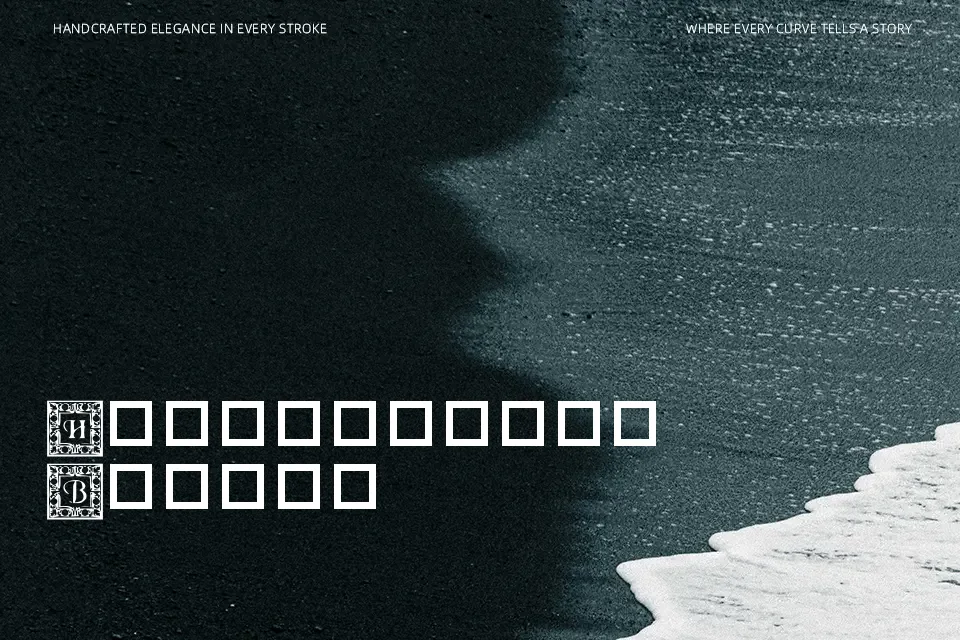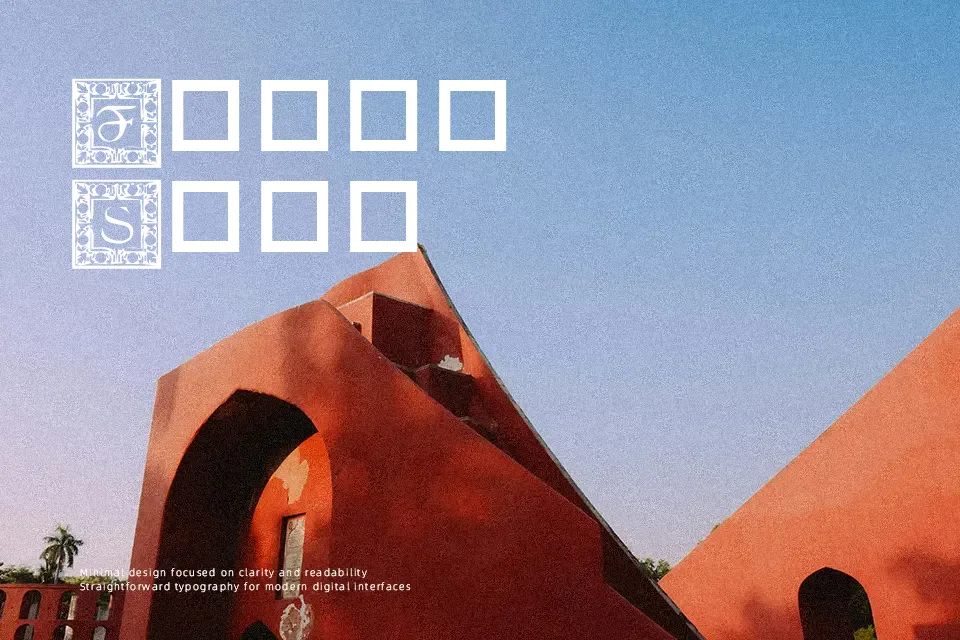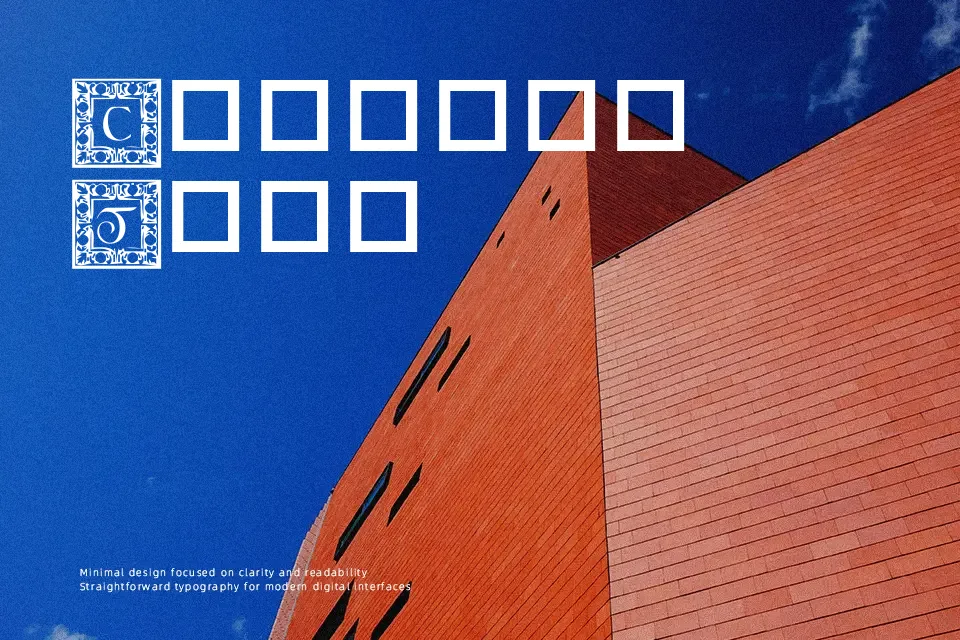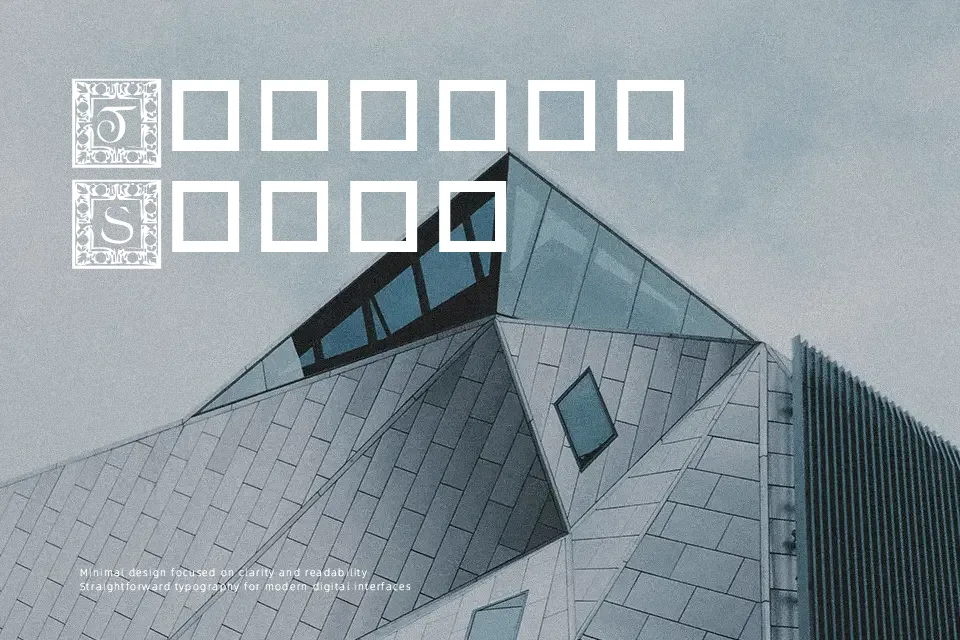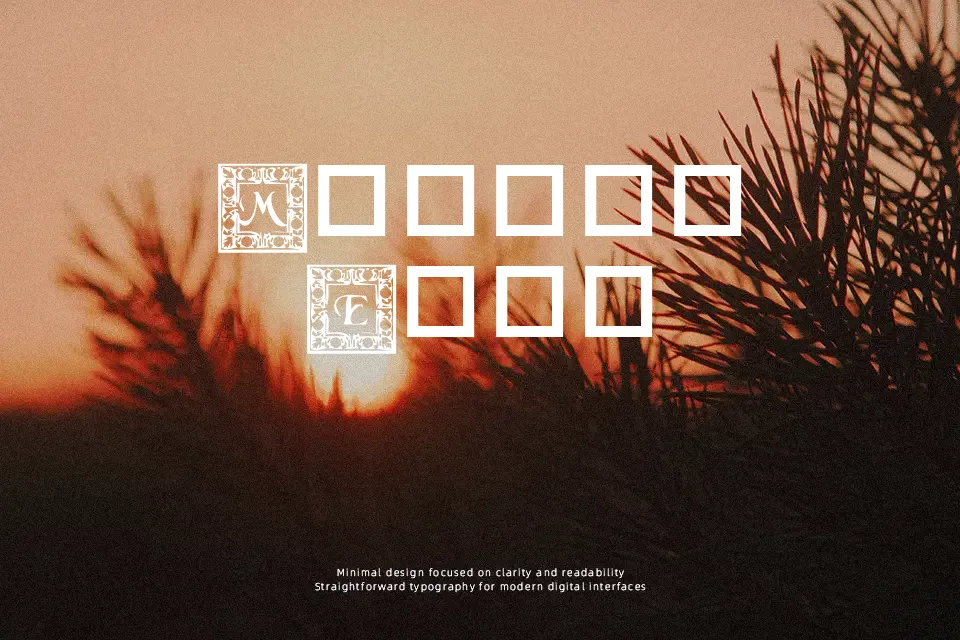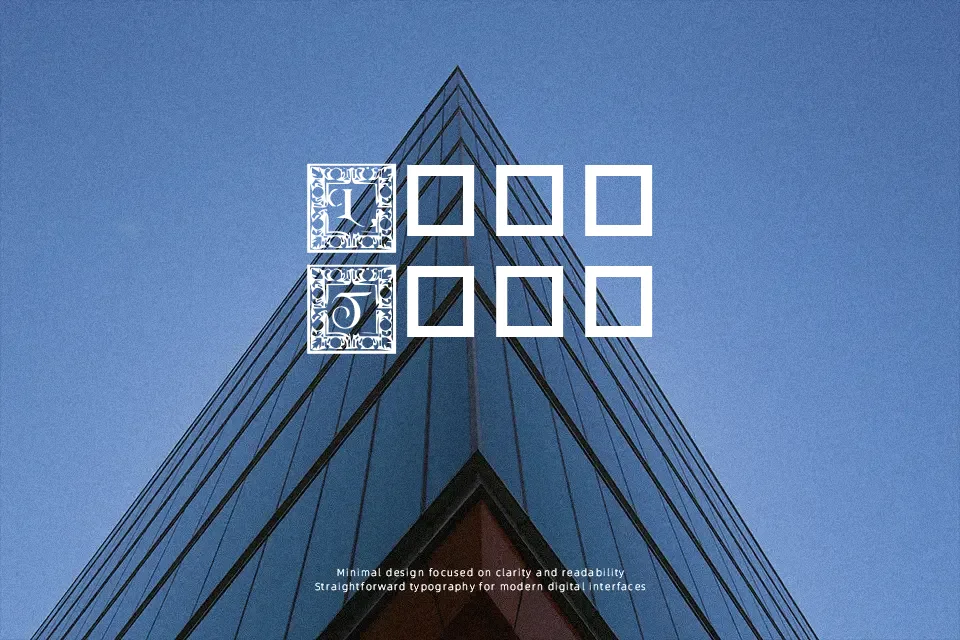
DLFillegreeCaps Font
Designed by Destiny's Lady
DLFillegreeCaps Font is an ornate decorative initials face built around uppercase letters, each enclosed in a detailed filigree border. The strokes read as fairly even, while the surrounding flourishes create a dense, formal silhouette with generous outer spacing. It has a vintage, ceremonial feel rather than a practical text rhythm, so it works best when used one character at a time. I would reach for it on monograms, invitation initials, gift tags, or packaging seals that need an embellished focal point. It starts to feel crowded in full words, though, and the decorative frame can overpower small sizes or modern layouts that rely on clean typography.
monogram initials
wedding stationery accents
ornamental packaging seals
drop cap style details
body text
small mobile UI labels
long headlines
minimal branding systems
Perfect for invitation, logo, and packaging, with a artistic and decorative style.